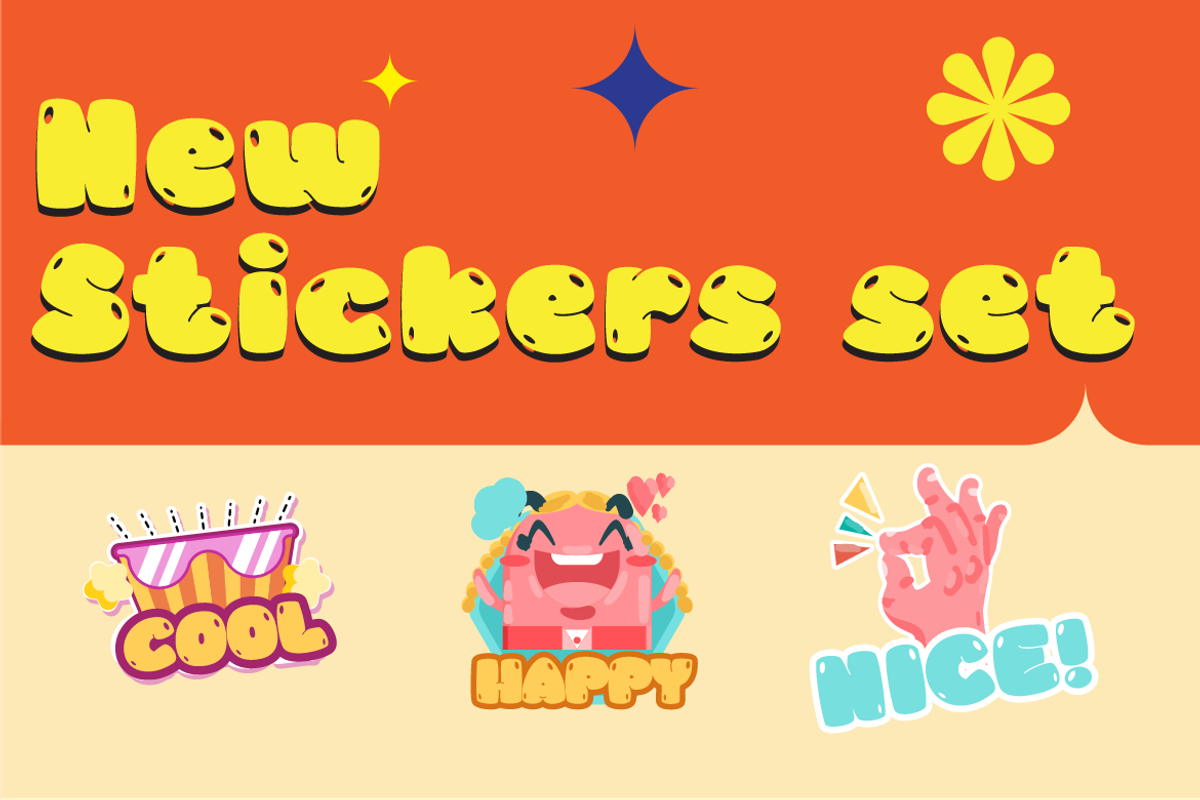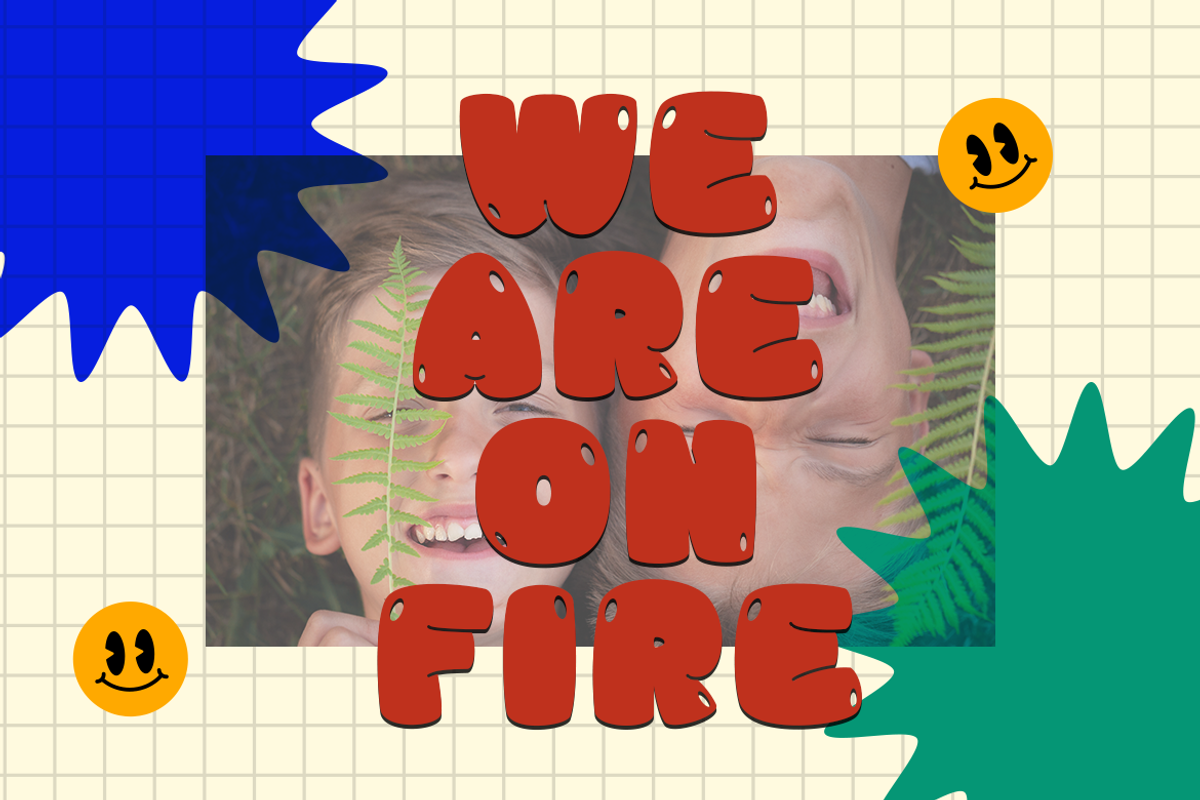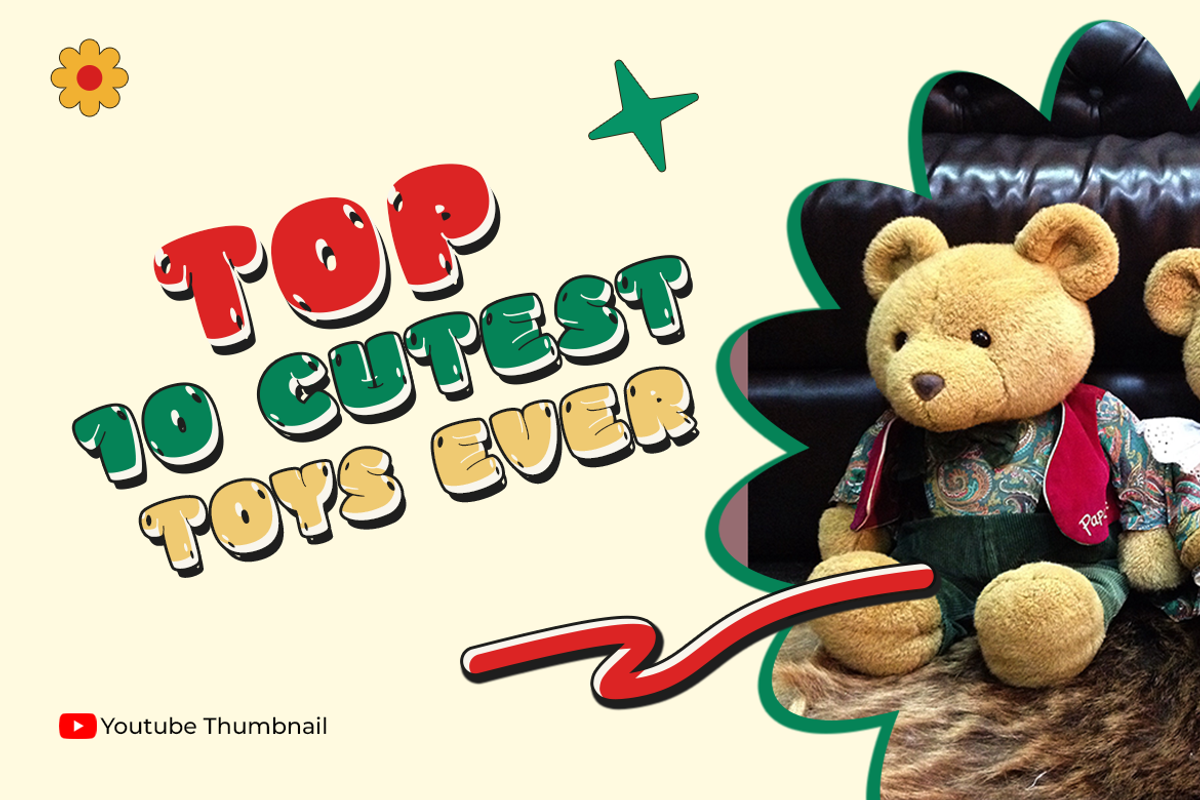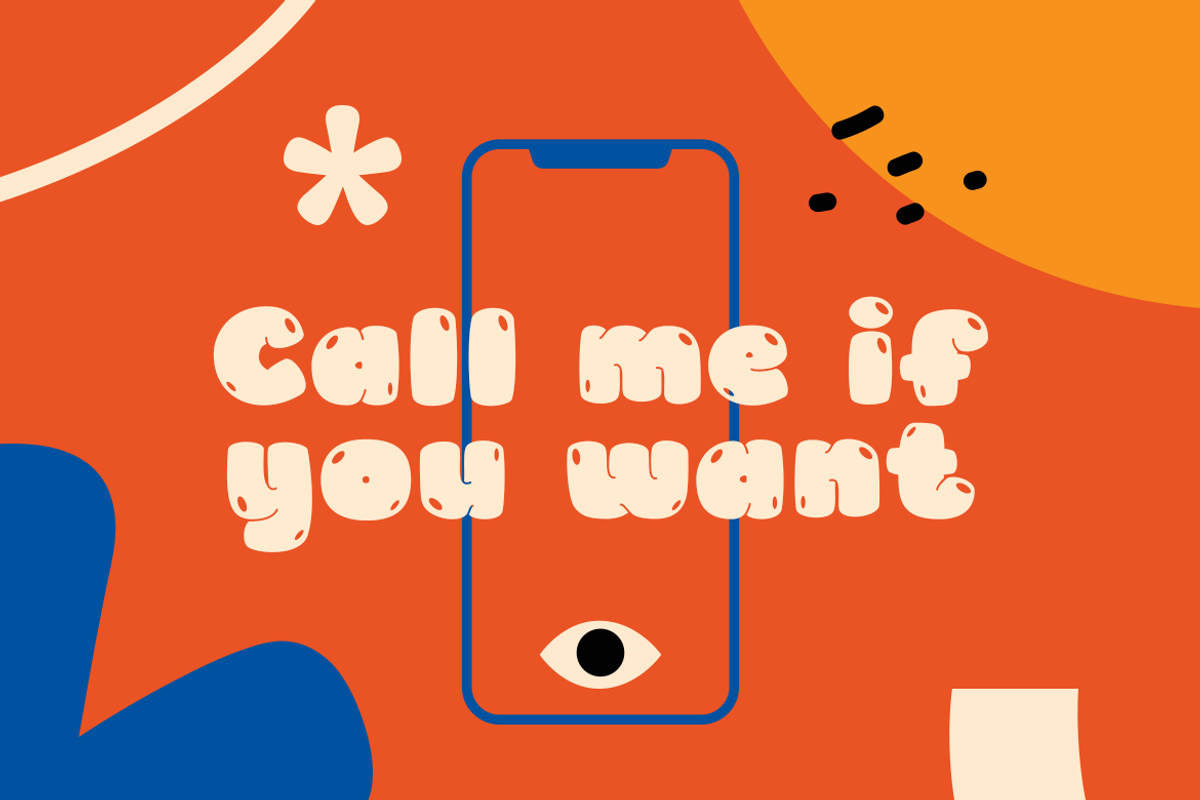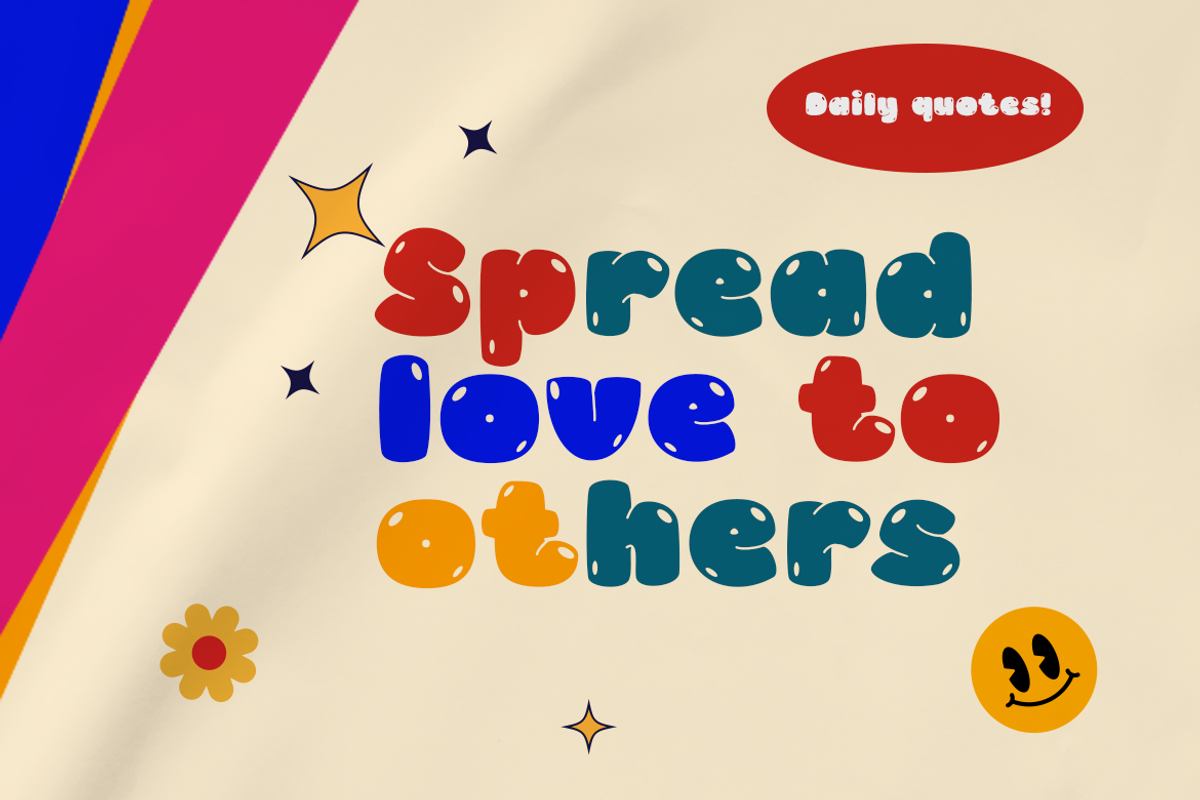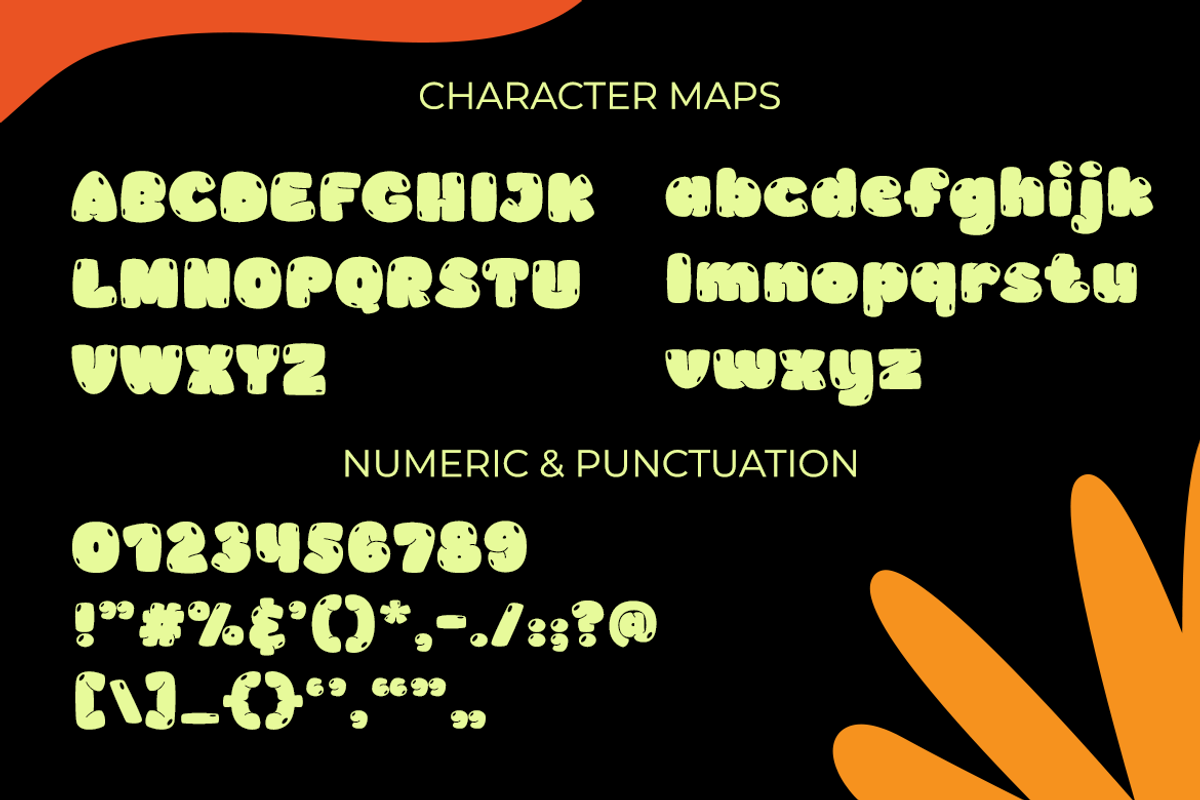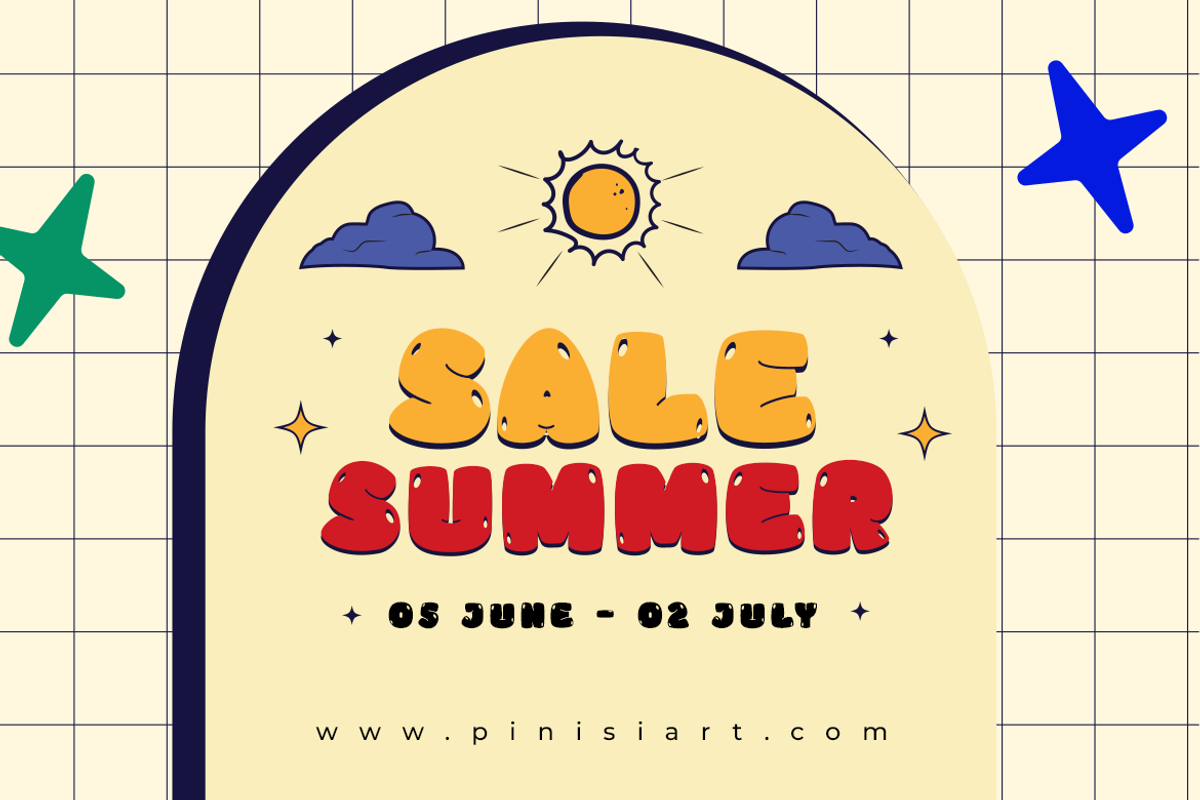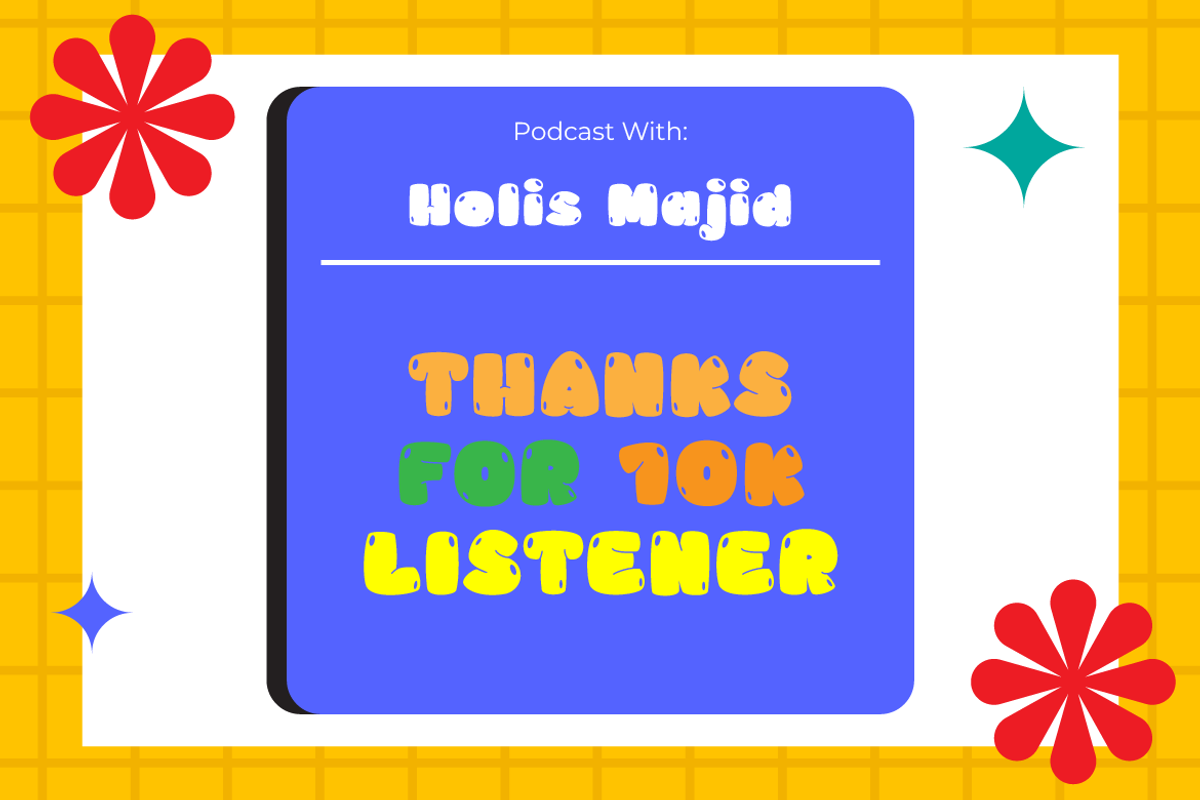
Dulce Boy – Pop Art Display Font
Dulce Boy – Cute Pop Art Display Font
Cute, fun, and giving a huge impact on the projects you’re working on. Dulce Boy is rocking the pop art style in its own way.
Suit perfectly for fun encouraging themes books market, music retro poster, stationary, school supplies font, youtube covers, youtube thumbnails, social media page covers, and so on…
- Basic Latin A-Z and a-z, Numbers, Punctuation